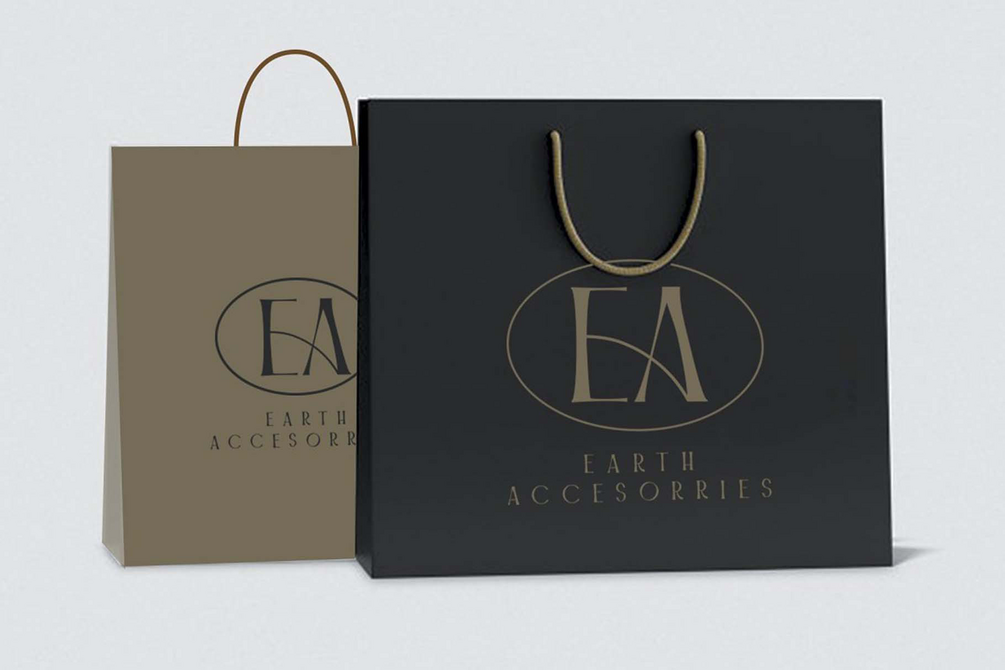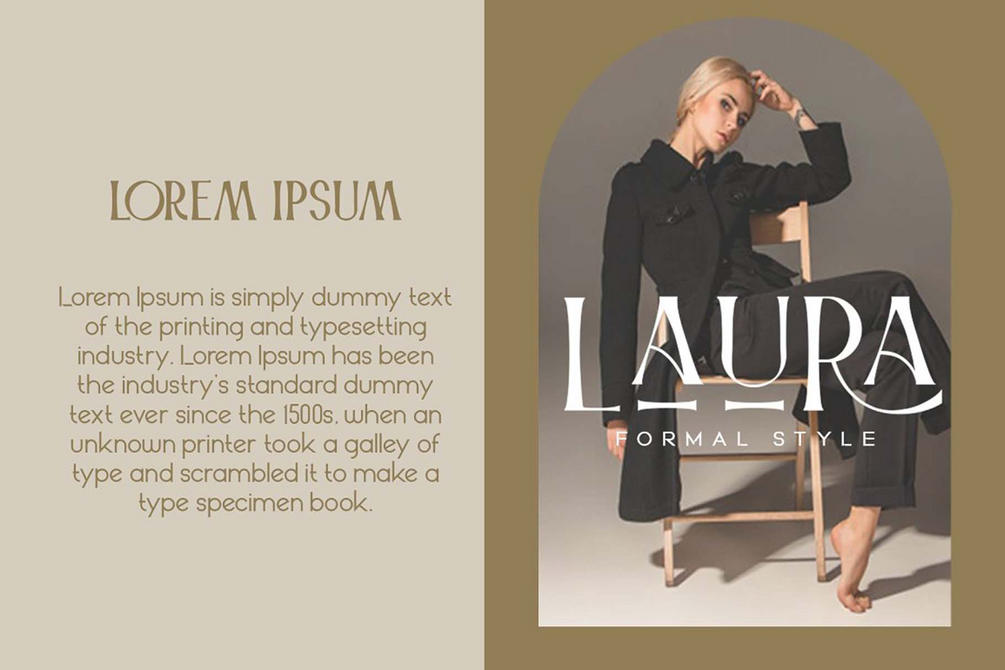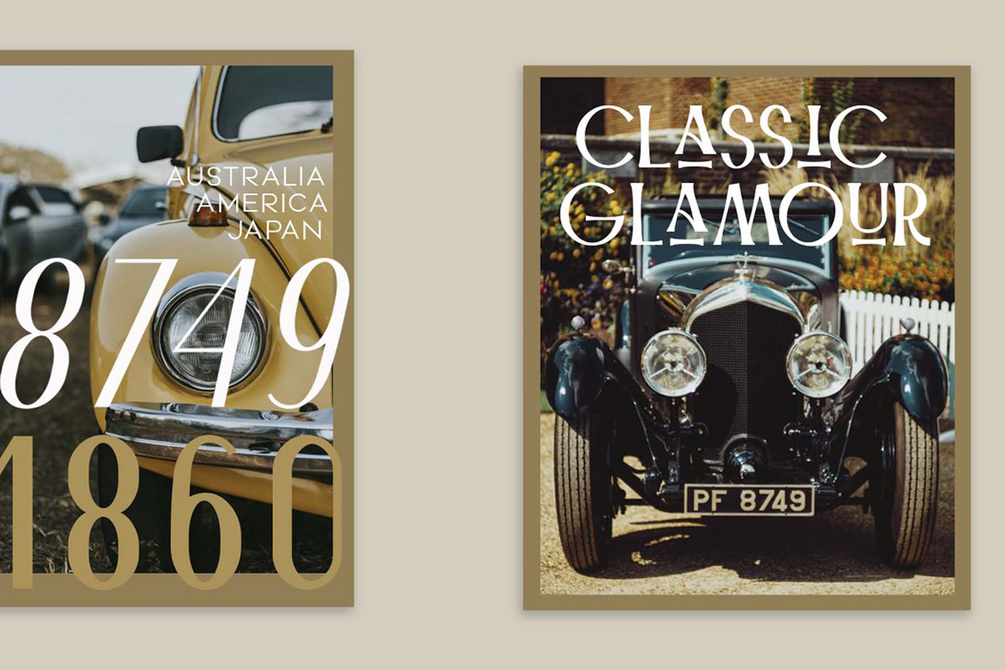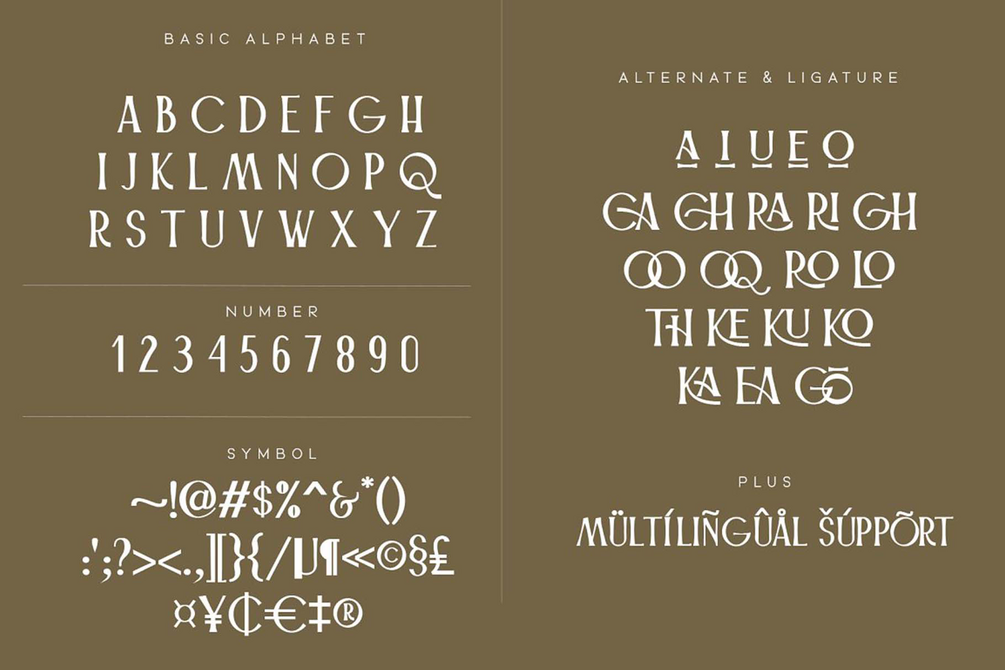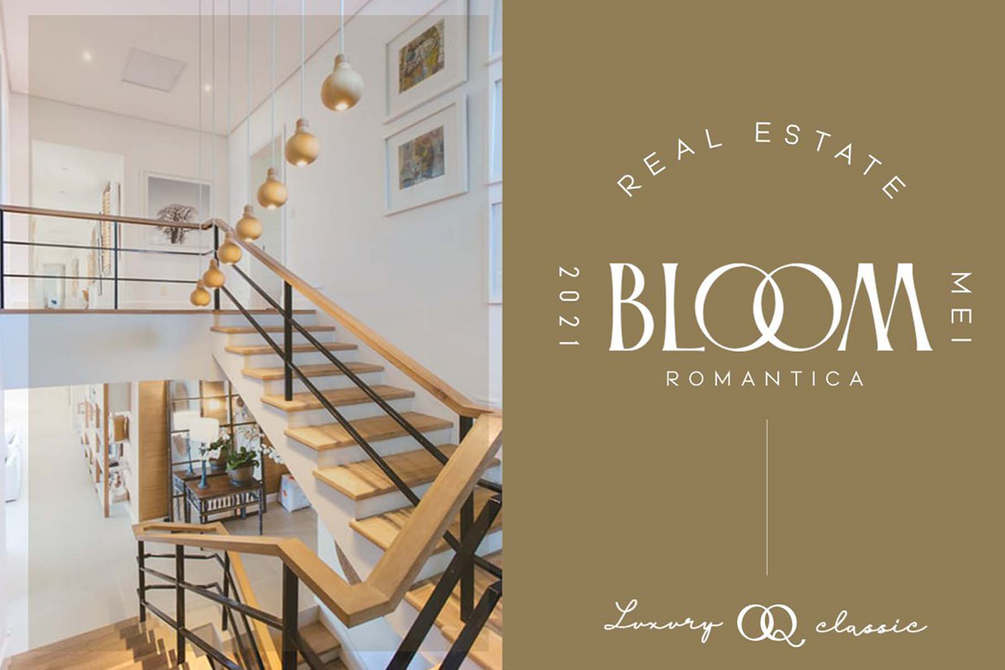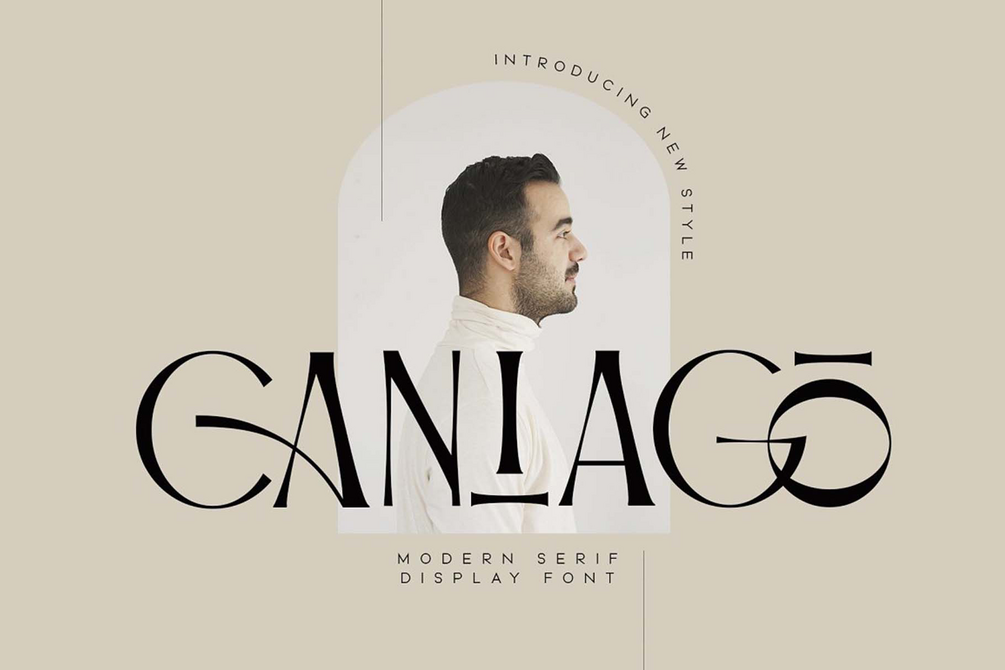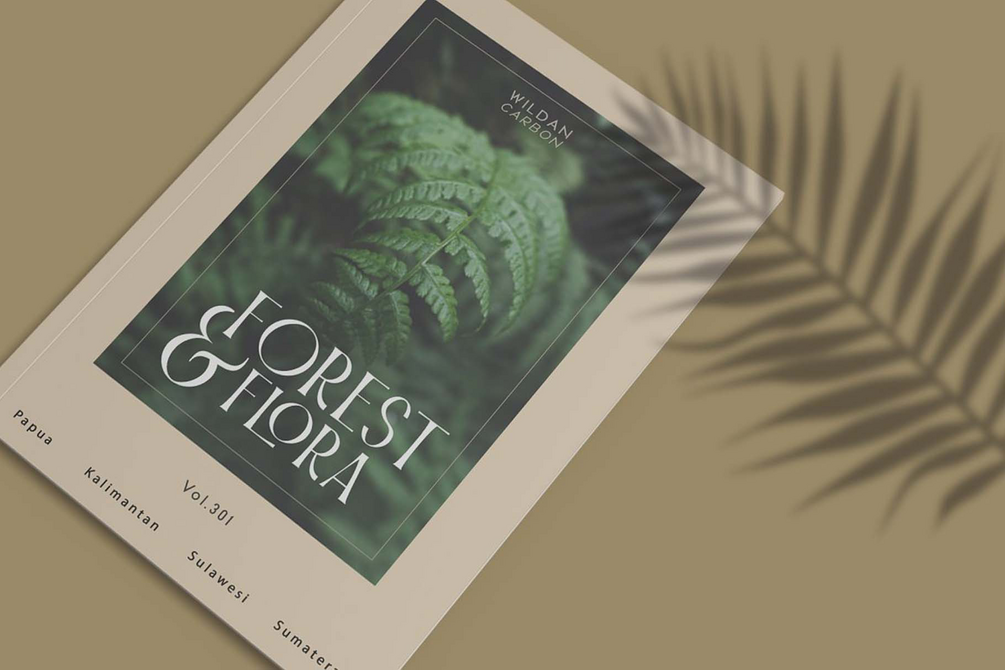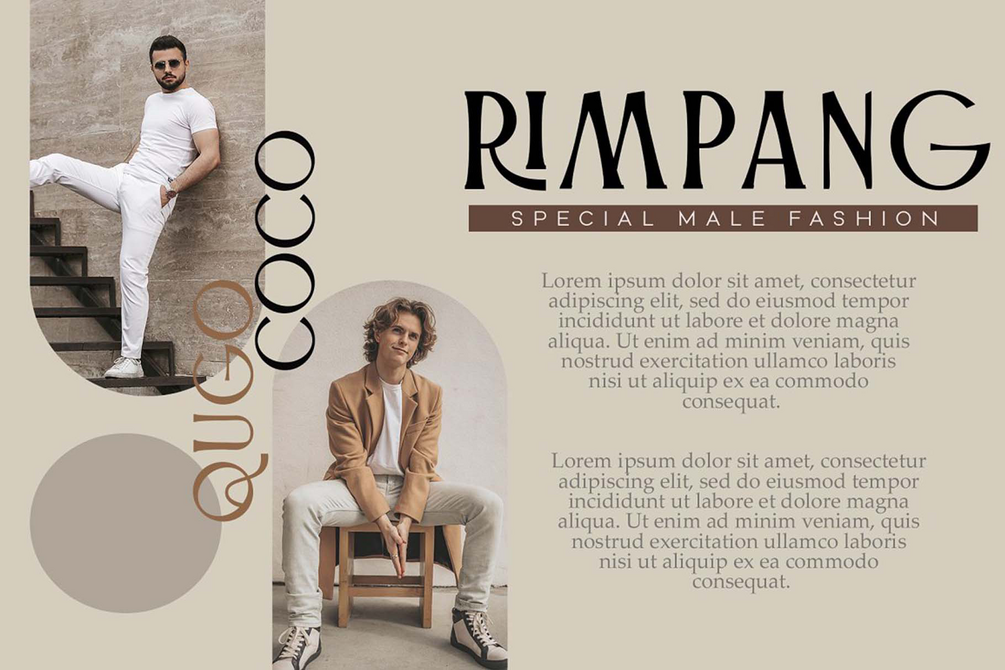
Caniago
Caniago is an incredibly neat and elegant serif font. Inspired by classic typefaces, roman taste, and combine with modern ligature. This font was born with classy look up. It is perfect for adding a striking title to your portfolio or website.
Caniago is also included full set (regular and italic) of:
uppercase and lowercase letters
multilingual characters
numerals
punctuation
Opentype feature